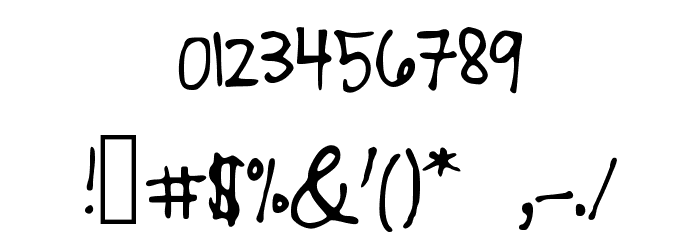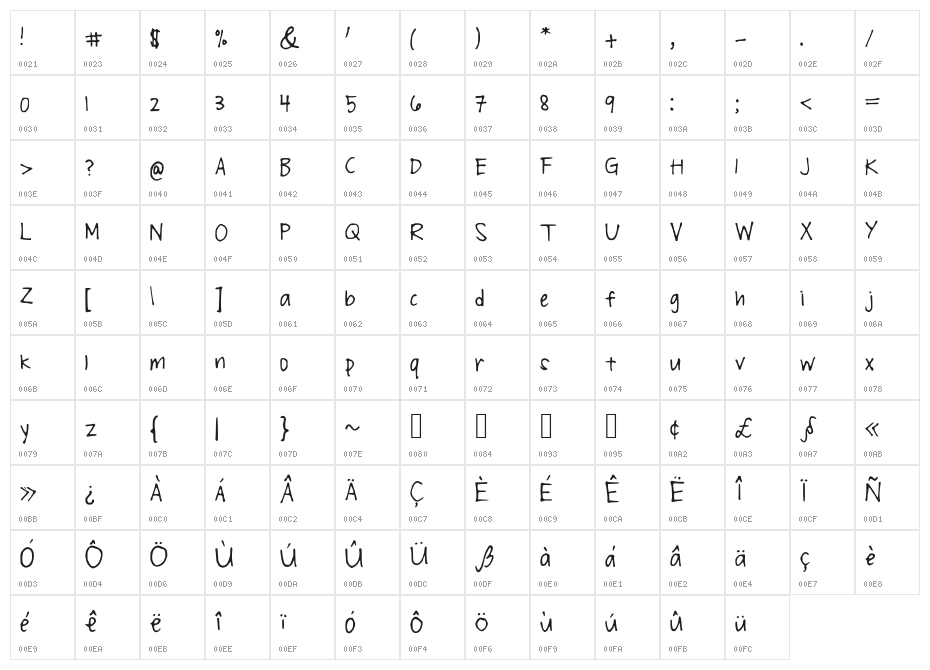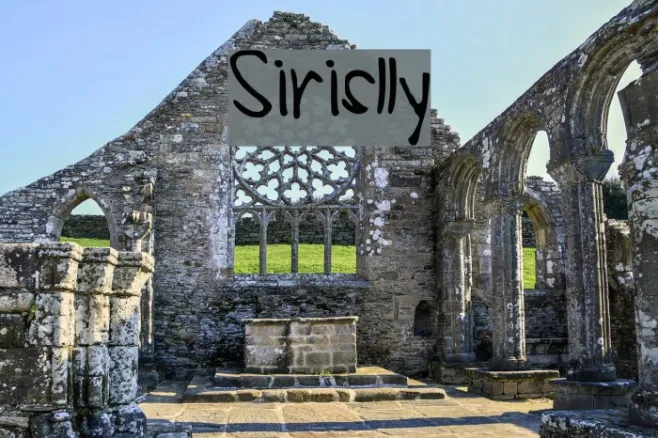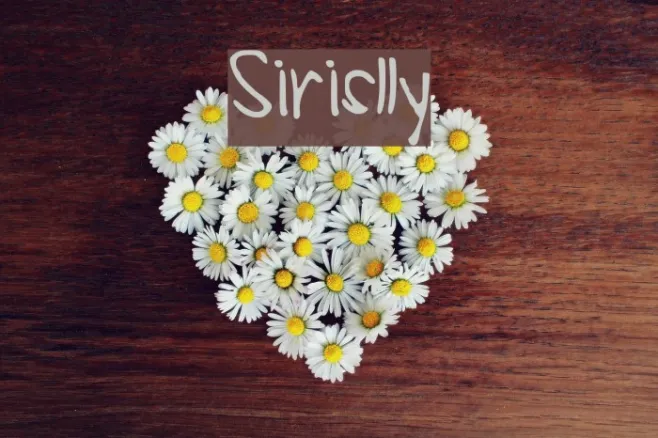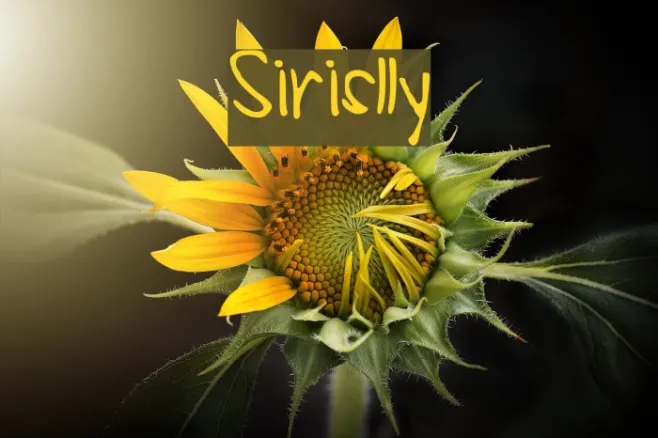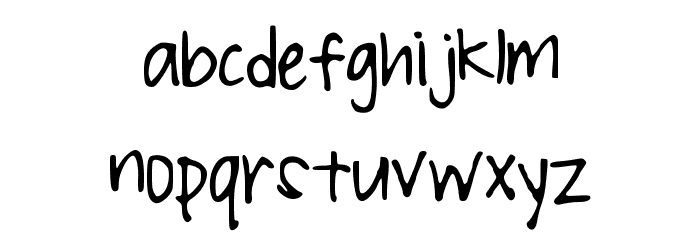
Sirislly Font
Sirislly Description
This font exhibits a playful and casual handwritten style, characterized by its irregular and slightly uneven strokes that mimic natural handwriting. The uppercase and lowercase letters maintain a consistent flow, with rounded edges and a friendly appearance. The numerals and special characters follow the same informal aesthetic, making the font suitable for projects that require a personal touch. Its legibility is maintained despite the informal style, making it versatile for various design applications.
| Use Case | Headlines, Informal text, Personal projects |
| Proposed Projects | Ideal for greeting cards, personal blogs, children's books, and informal branding projects. |